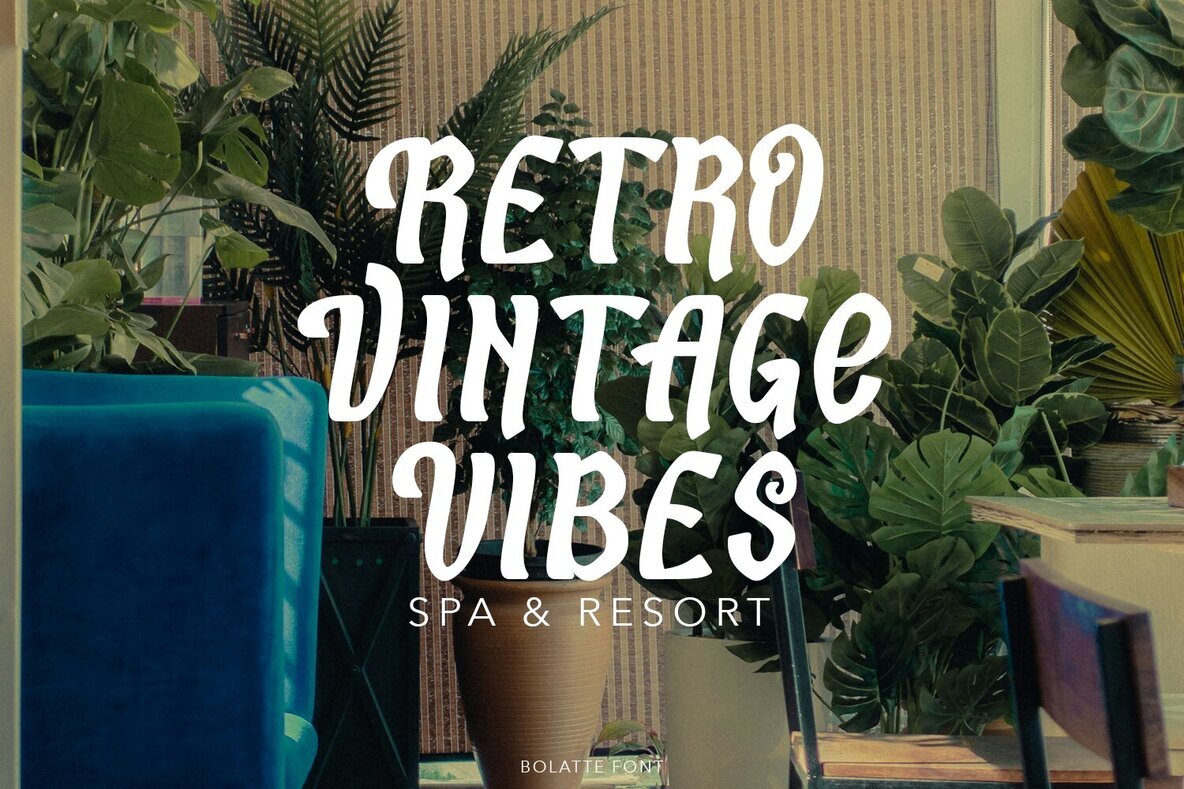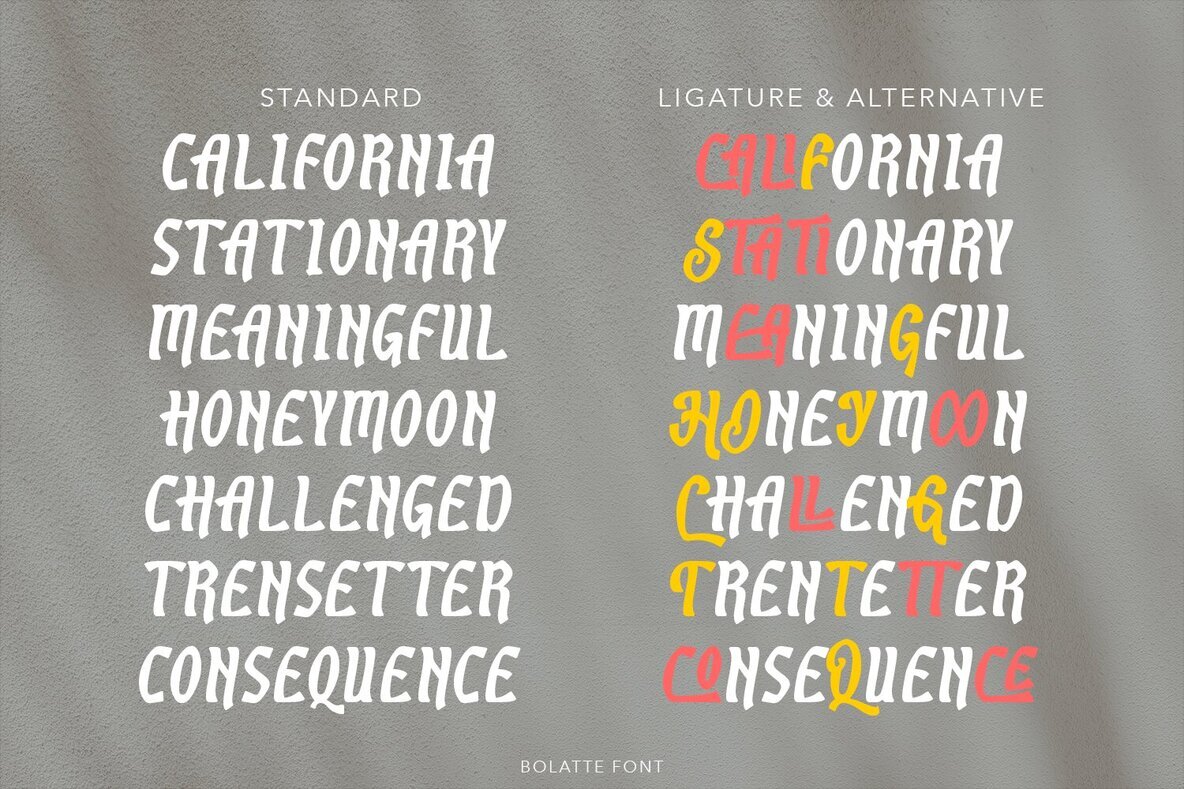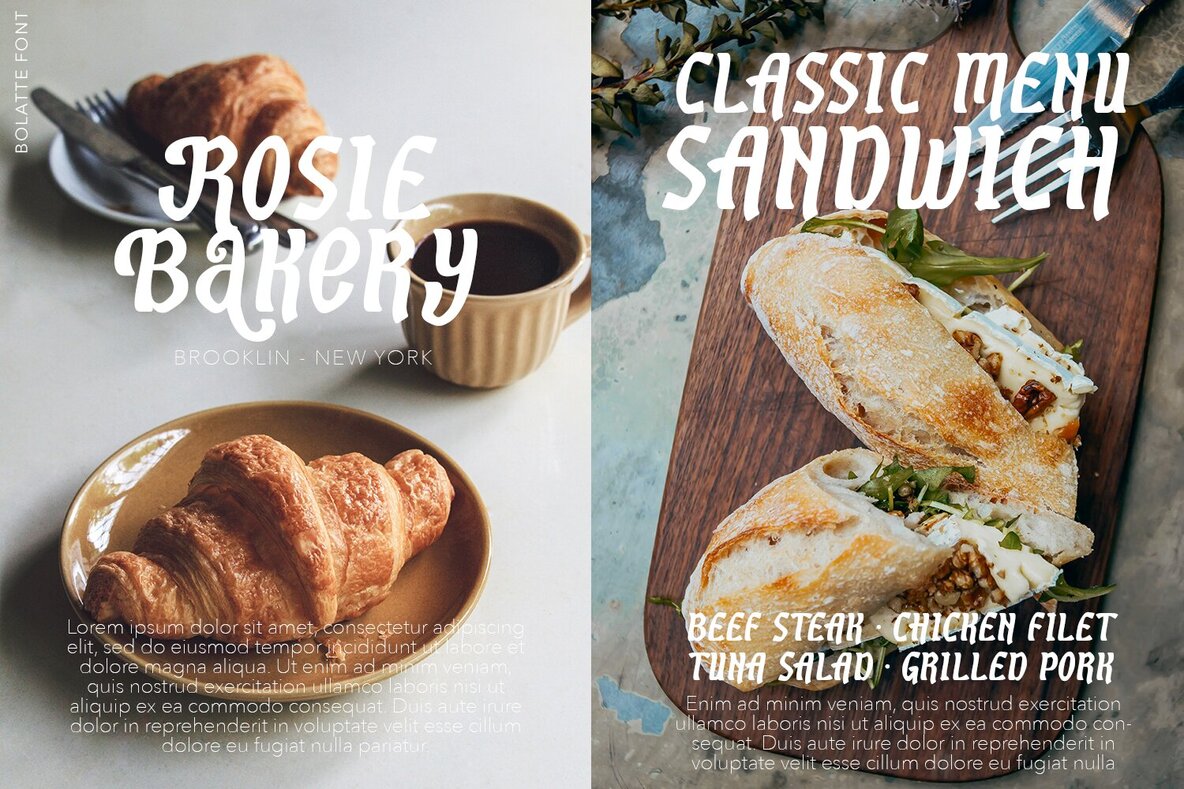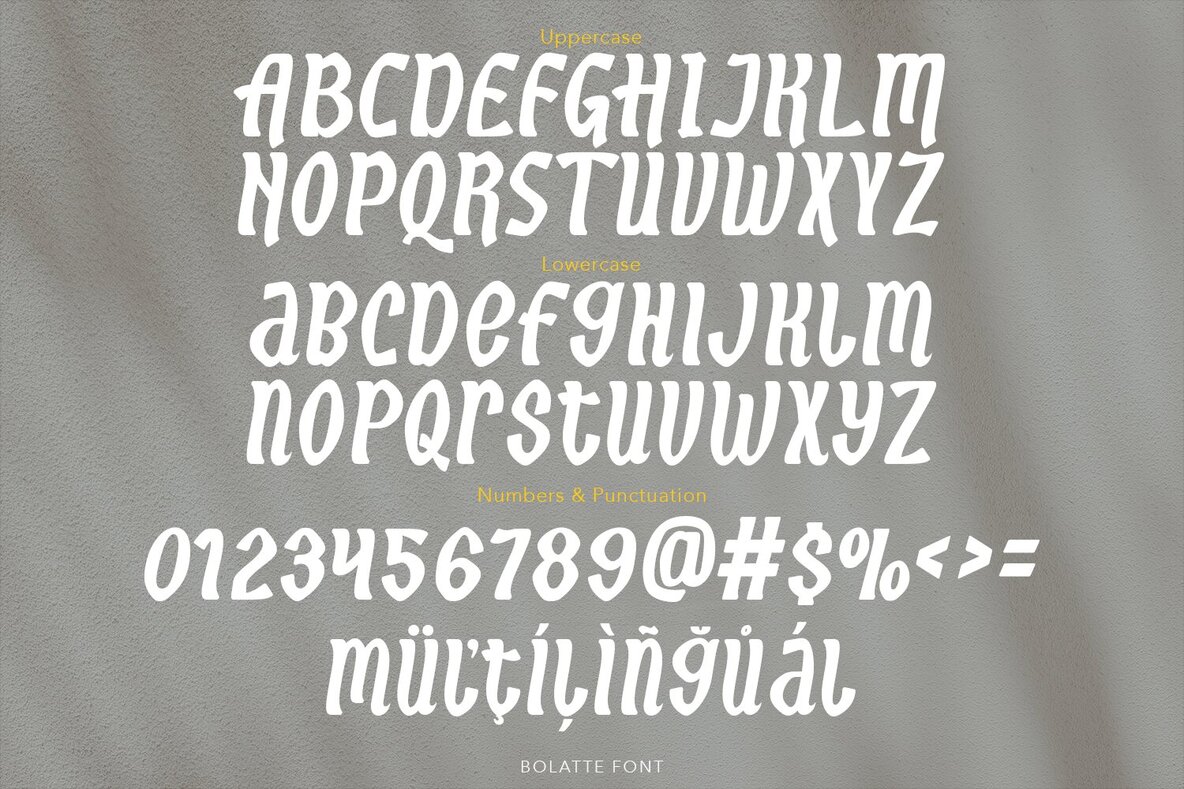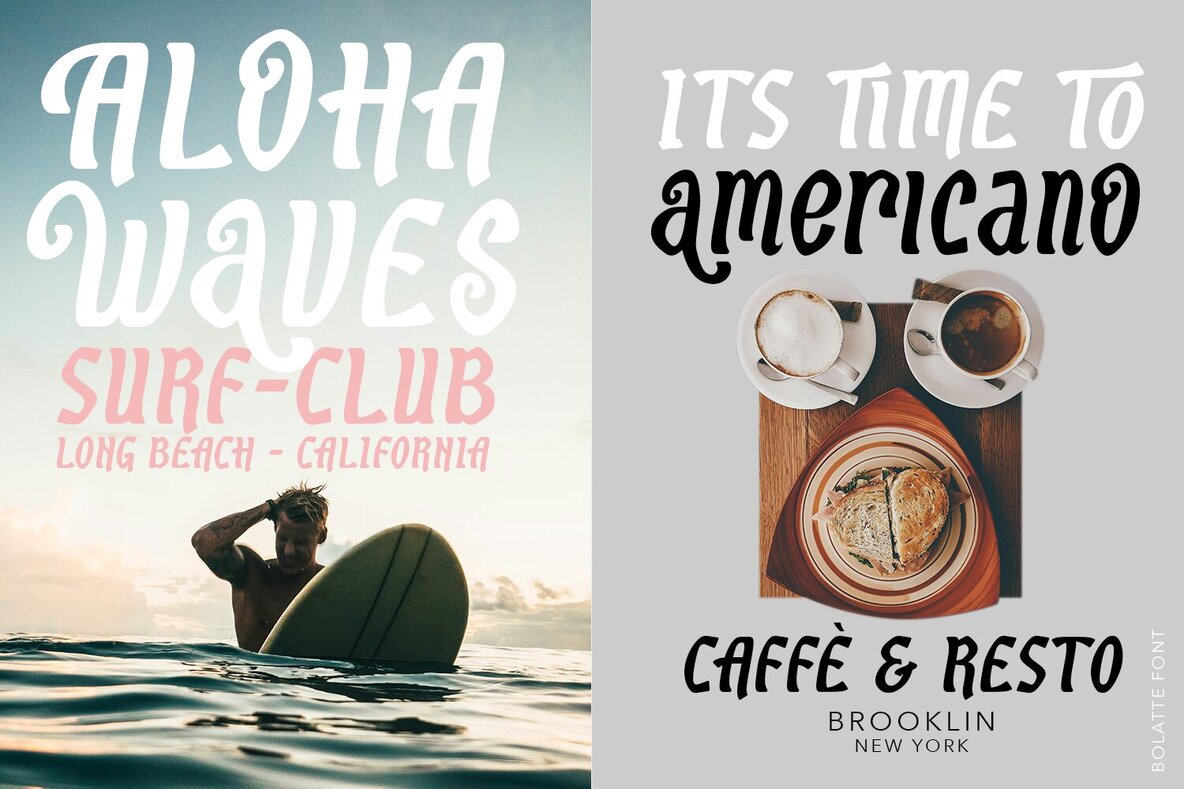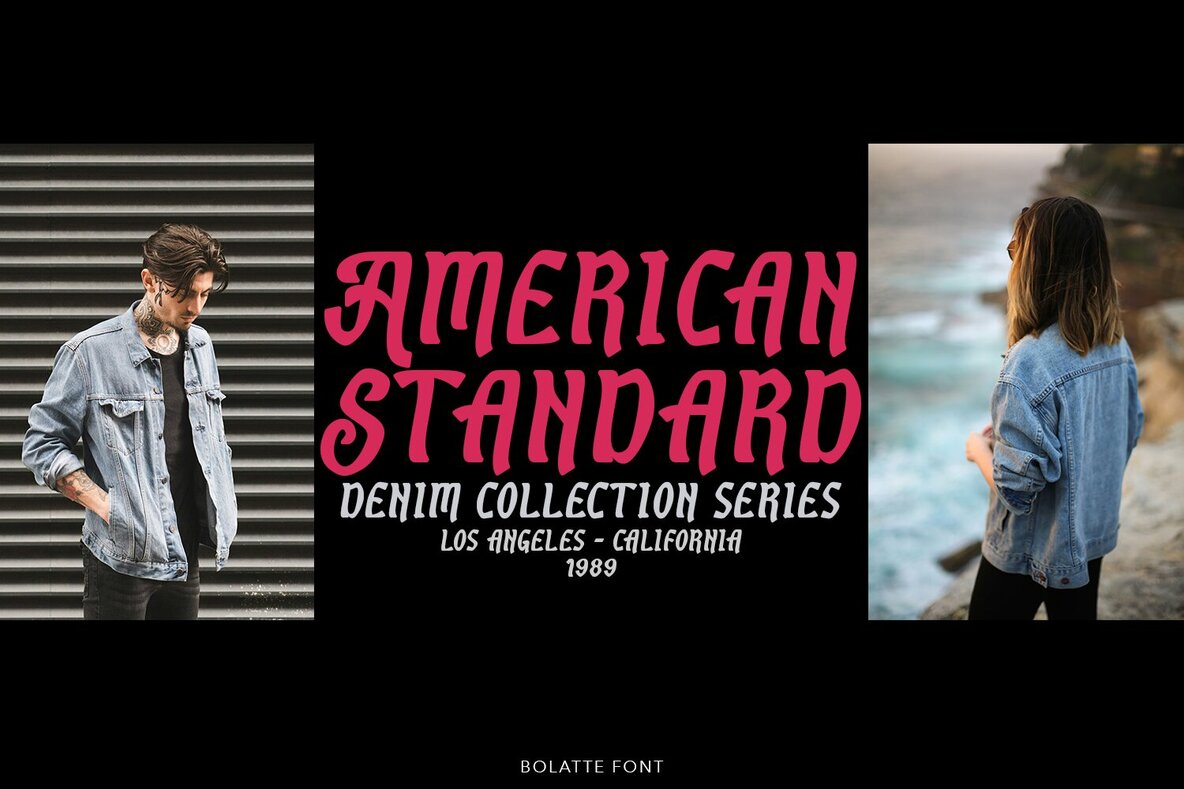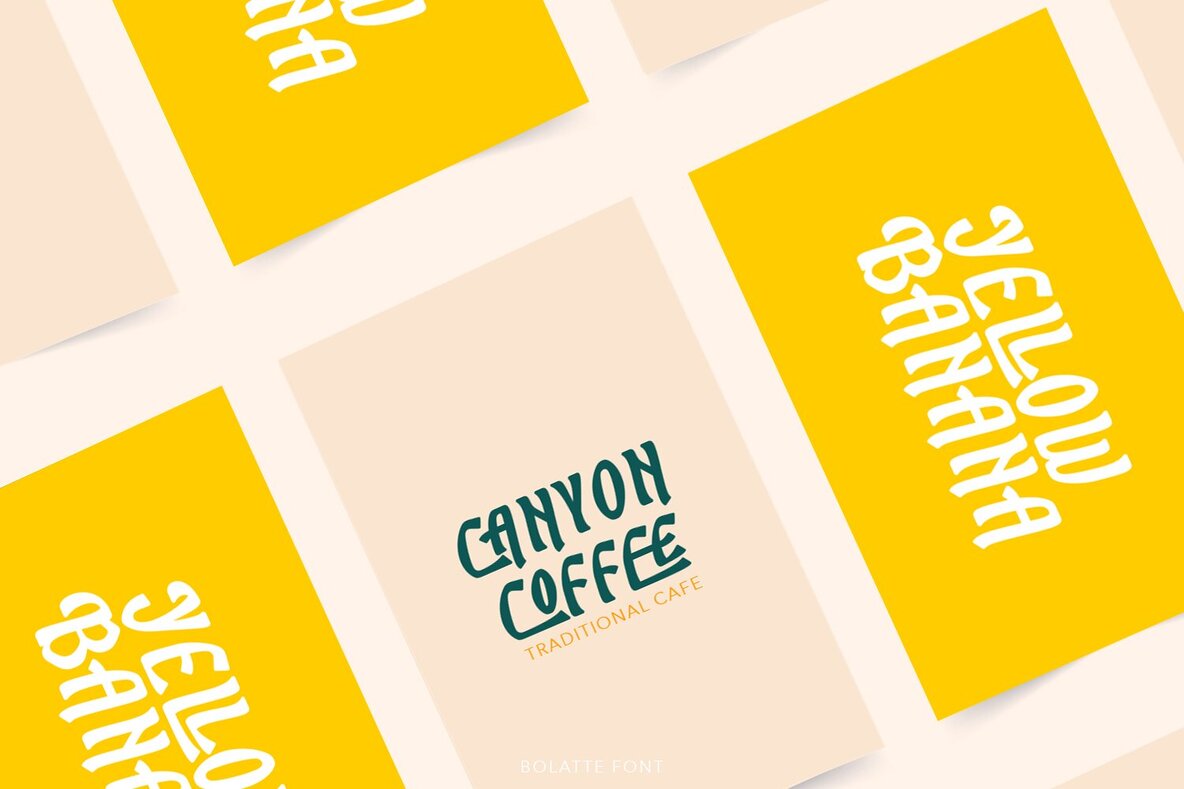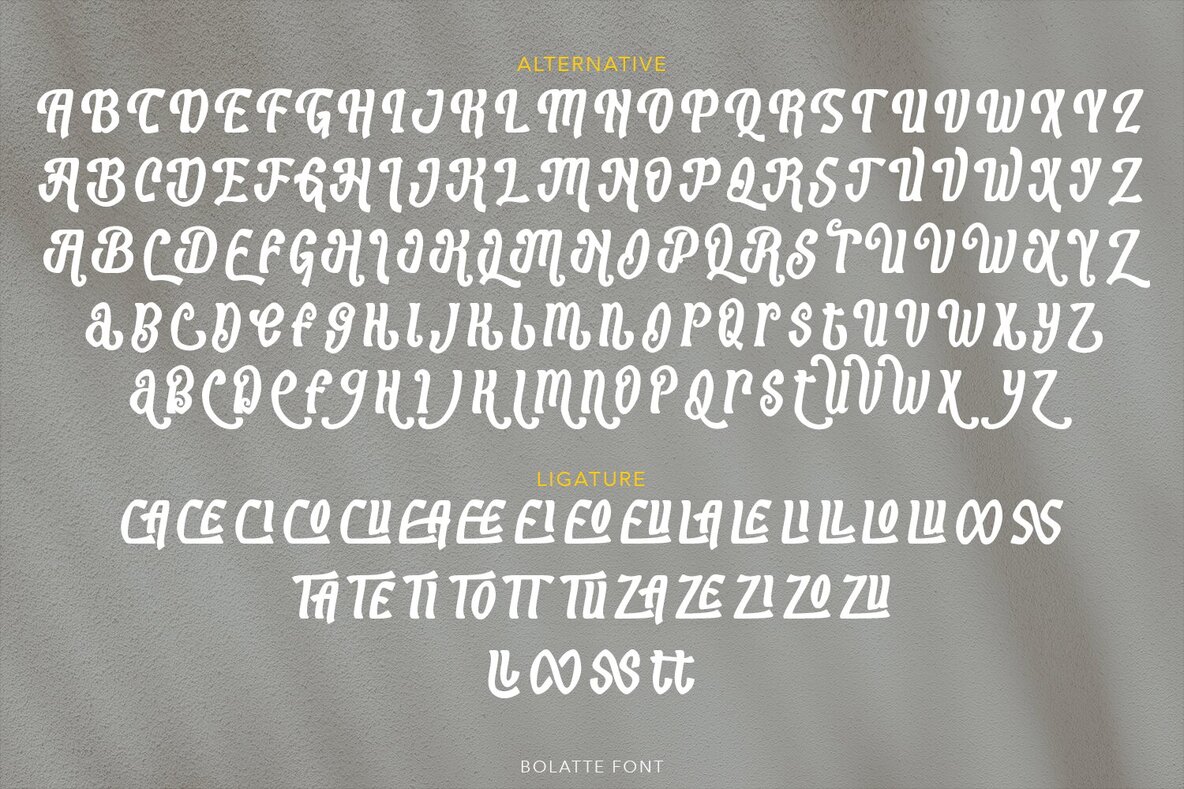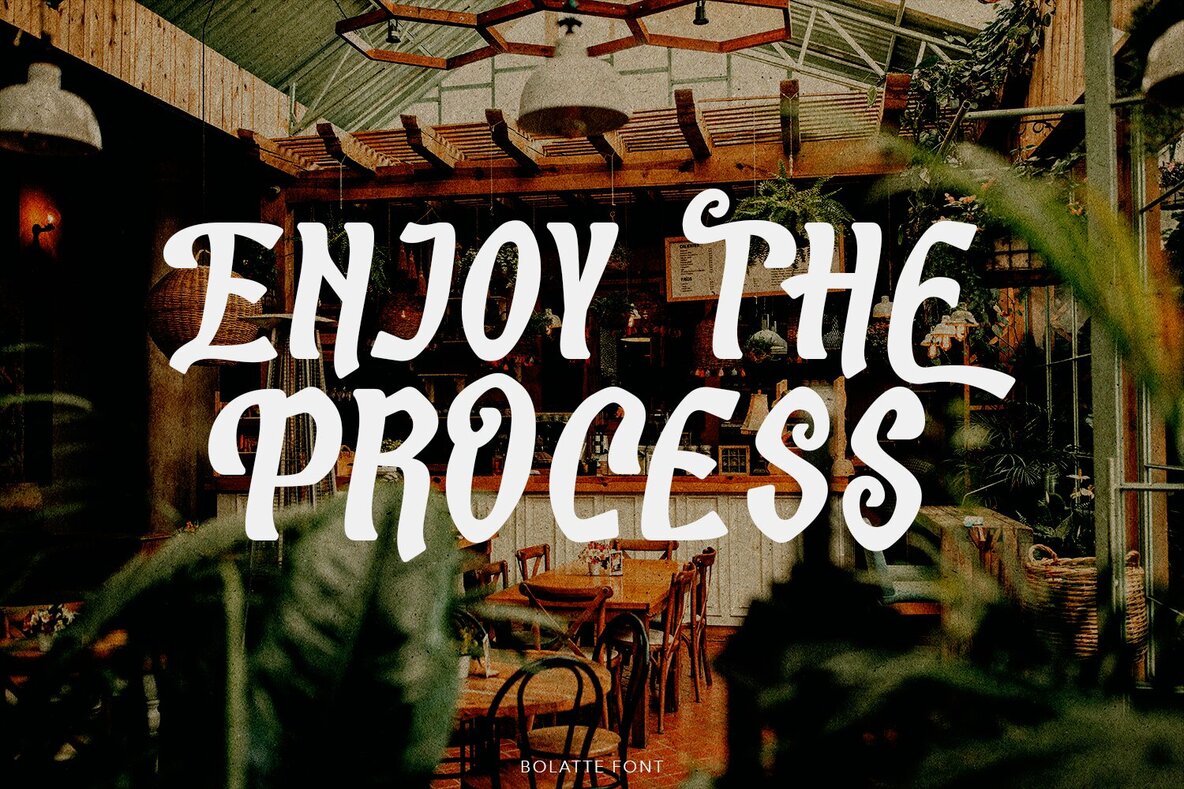
Bolatte Font
Bolatte Regular
Bolatte is a refined display font characterized by simple, curvaceous lines, uniform height, and smooth corners. This elegant typeface is ideal for fashion-related projects, but its versatility allows it to shine across various design applications. Whether you're working on brand identity, product packaging, invitations, or quotes, Bolatte's clean and sophisticated aesthetic will enhance your creations.
Utilize Bolatte for t-shirts, labels, posters, logos, and more to give your designs a polished and modern feel. Its minimalist curves and balanced structure make it a perfect choice for designers aiming to create a chic and cohesive look across different mediums. Explore Bolatte for your next project to achieve a seamlessly stylish result.